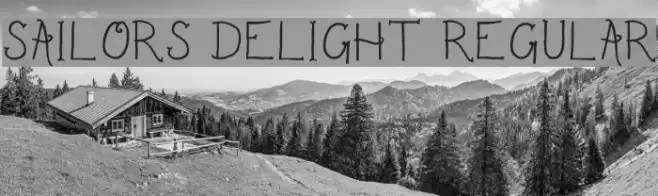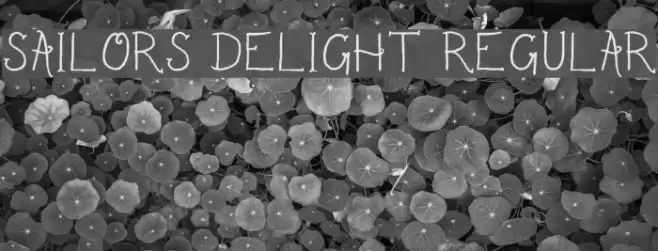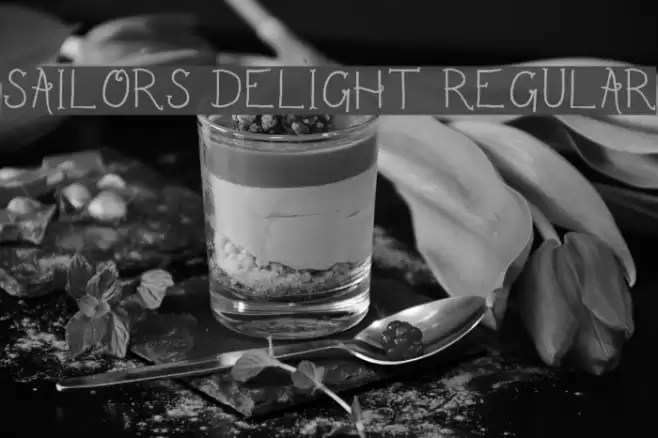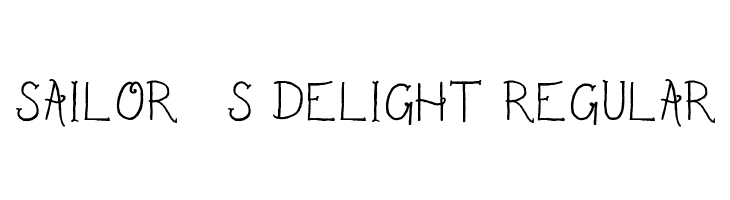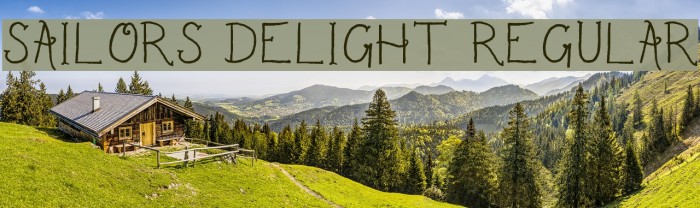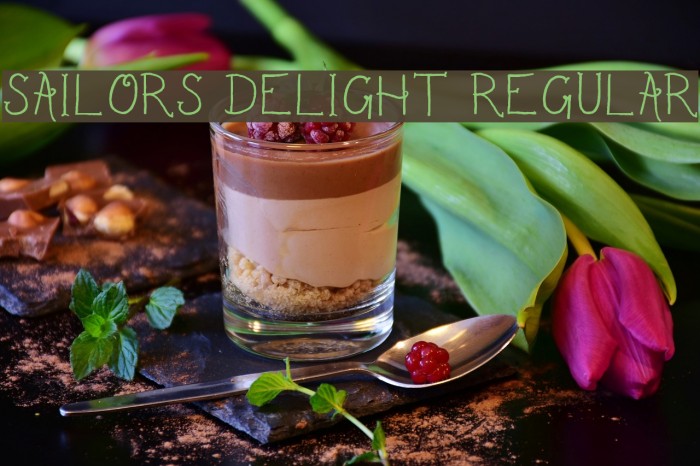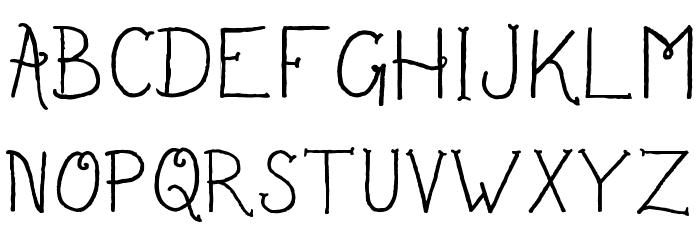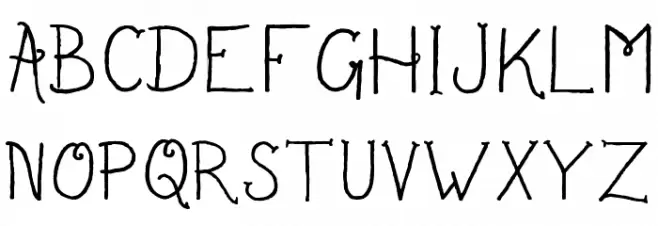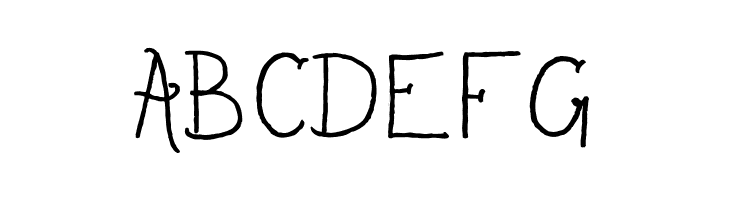
Sailor's Delight Regular Font
Sailor's Delight Regular Description
This font features a whimsical, hand-drawn style that evokes a sense of adventure and playfulness. The characters are irregular and slightly uneven, giving them a unique charm reminiscent of handwritten notes or sketches. The strokes are thin with occasional variations in thickness, adding to the organic feel. The overall appearance is casual and informal, making it suitable for creative and artistic projects. The uppercase letters are distinct, with exaggerated curves and loops, while the lowercase letters maintain a consistent style. This font captures a nautical or maritime theme, perfect for designs that aim to convey a sense of exploration or storytelling.
A whimsical, hand-drawn font with a nautical theme and playful character from Uncategorized fonts.
- Proposed Projects: Ideal for children's book covers, adventure-themed posters, creative branding, and artistic invitations.